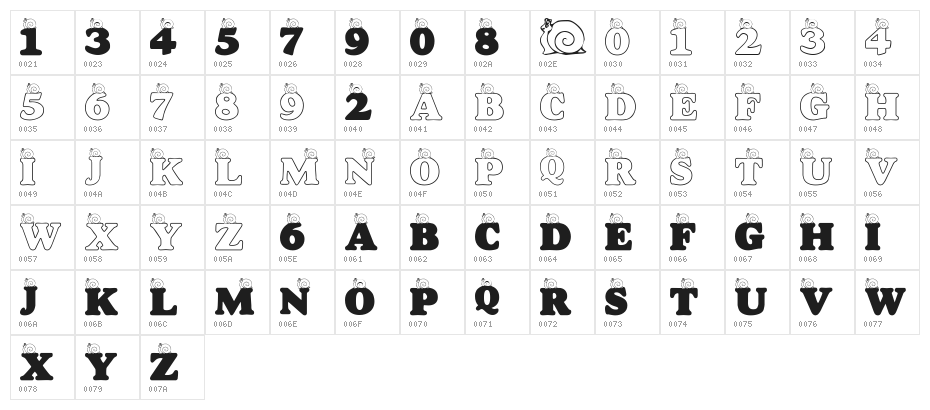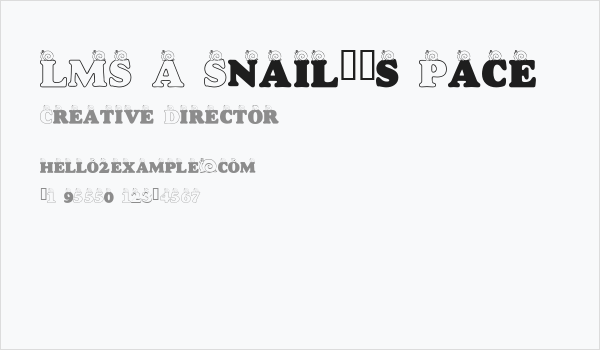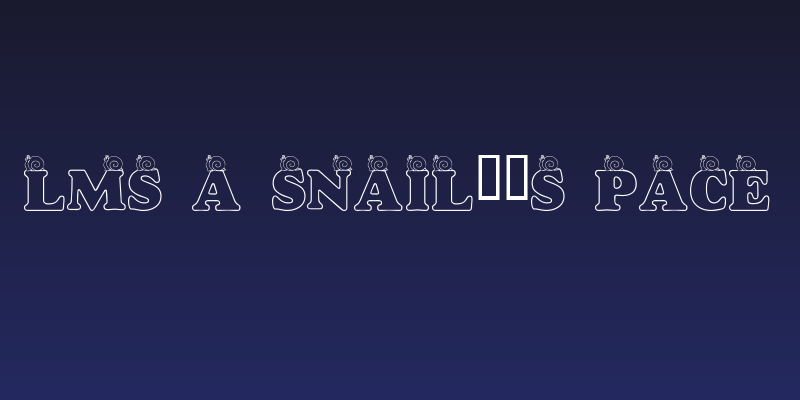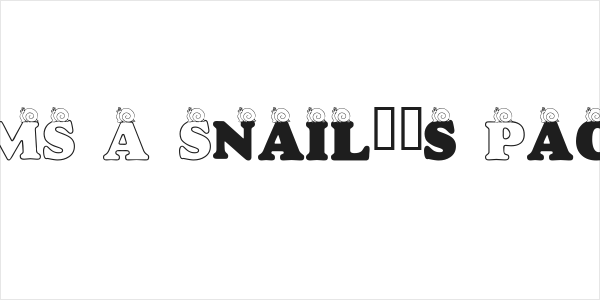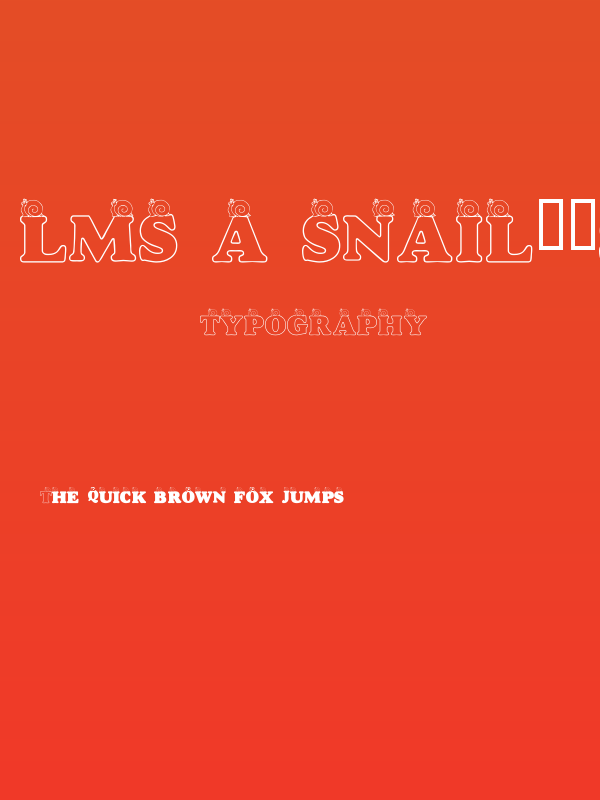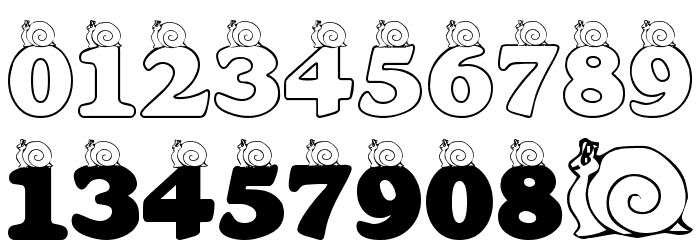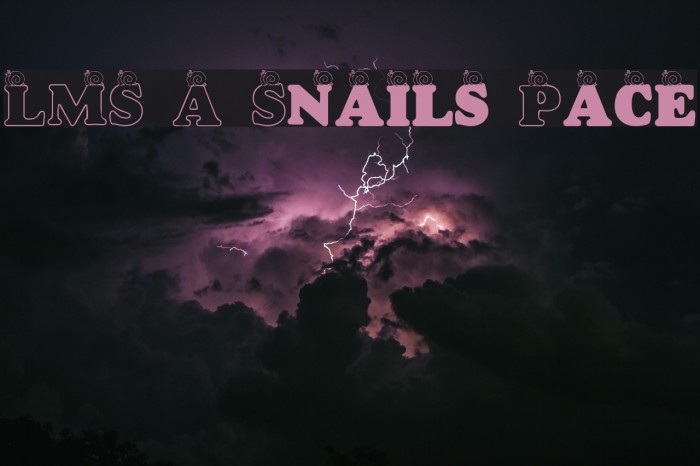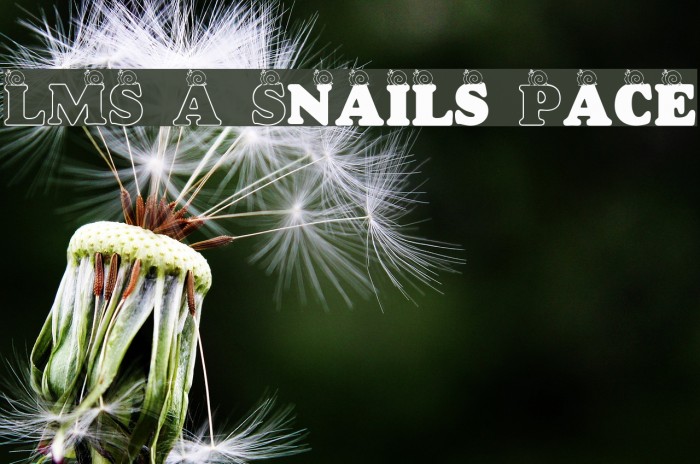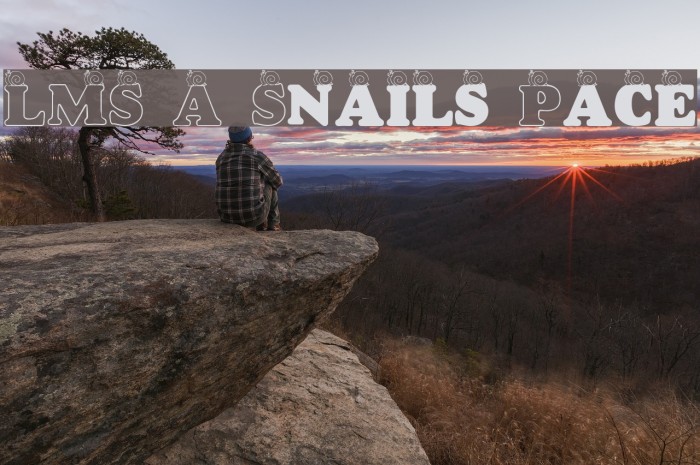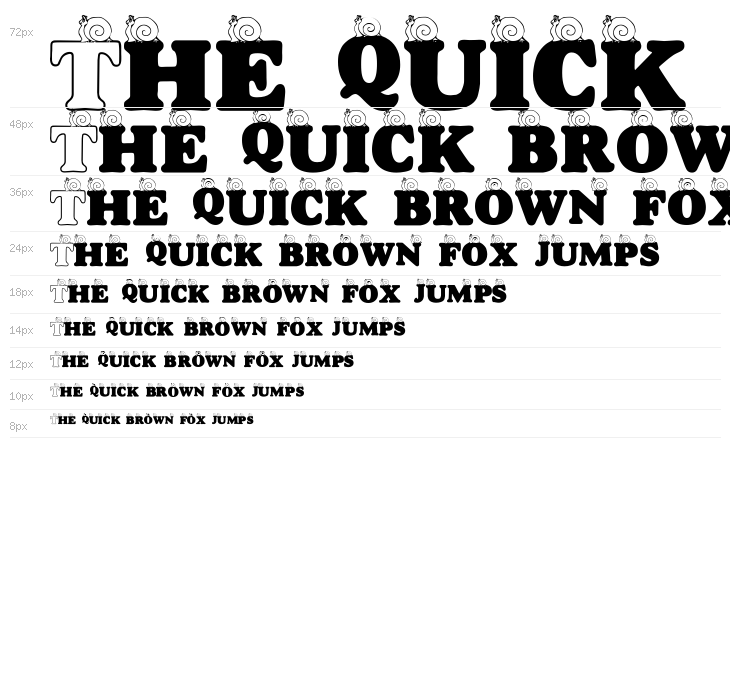
LMS A Snail's Pace Font
This playful and whimsical font features a unique design where each character is topped with a small snail illustration. The letters are bold and rounded, giving them a friendly and approachable appearance. The snails add a charming and humorous touch, making the font ideal for children's projects or lighthearted themes. The uppercase letters are consistent in style, with a solid structure that ensures readability despite the decorative elements. The numbers follow the same design principle, maintaining uniformity across the font. This font is perfect for projects that require a fun and engaging visual element.
| Overall Style | Whimsical |
| Proposed Projects | Ideal for children's books, playful branding, or educational materials. |